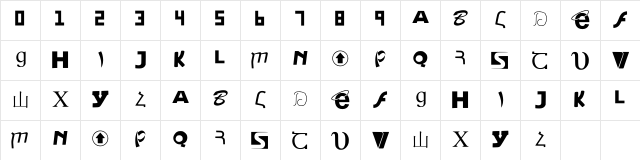
Sporty Os Font Regular
Design Context for Sporty Os Font
Sporty Os Font brings high-energy athletic personality to the page - its confident, muscular forms are built for impact.
Pro Tip: Use Sporty Os Font in all-caps headlines where its athletic energy can fully express itself. Pair with a solid, simple sans for supporting text.